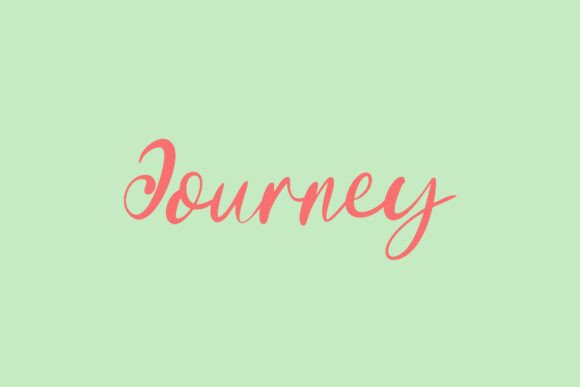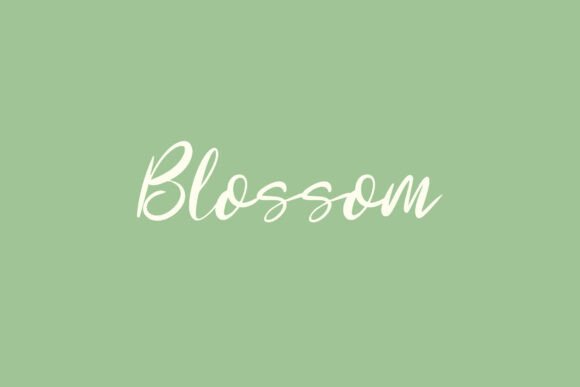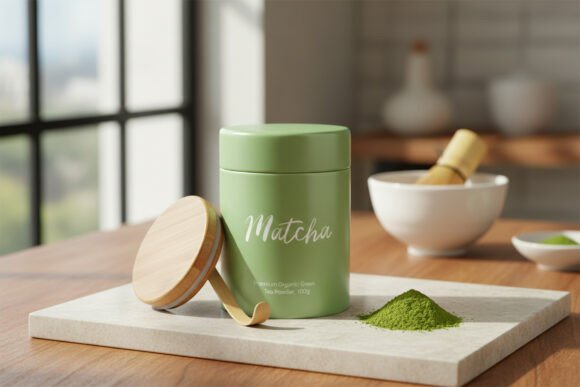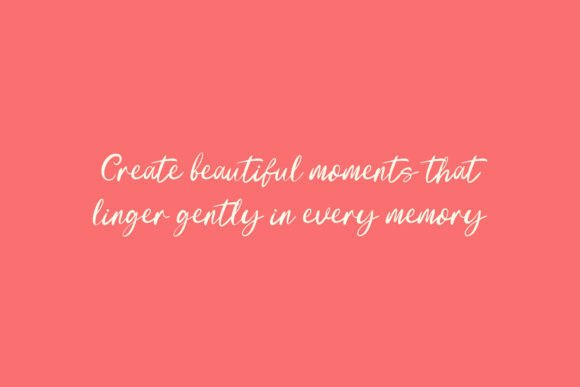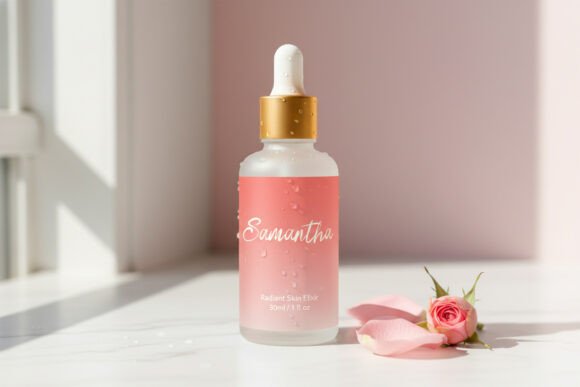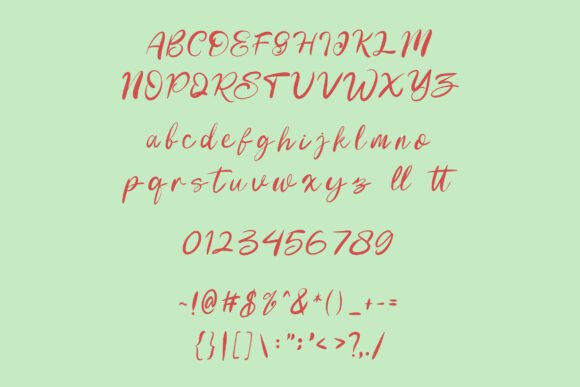
Introduction to Imote Font
Imote is a beautifully crafted, feminine script font that captures the look and feel of authentic, flowing brush lettering.
Its elegant, connected strokes and cheerful aesthetic bring a personal, handmade touch to any design Perfect for creating captivating wedding invitations, stylish branding, heartfelt greeting cards, and social media graphics that demand attention.